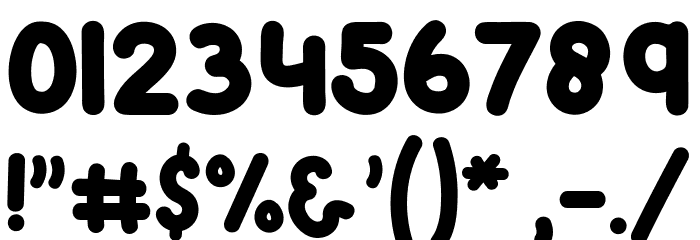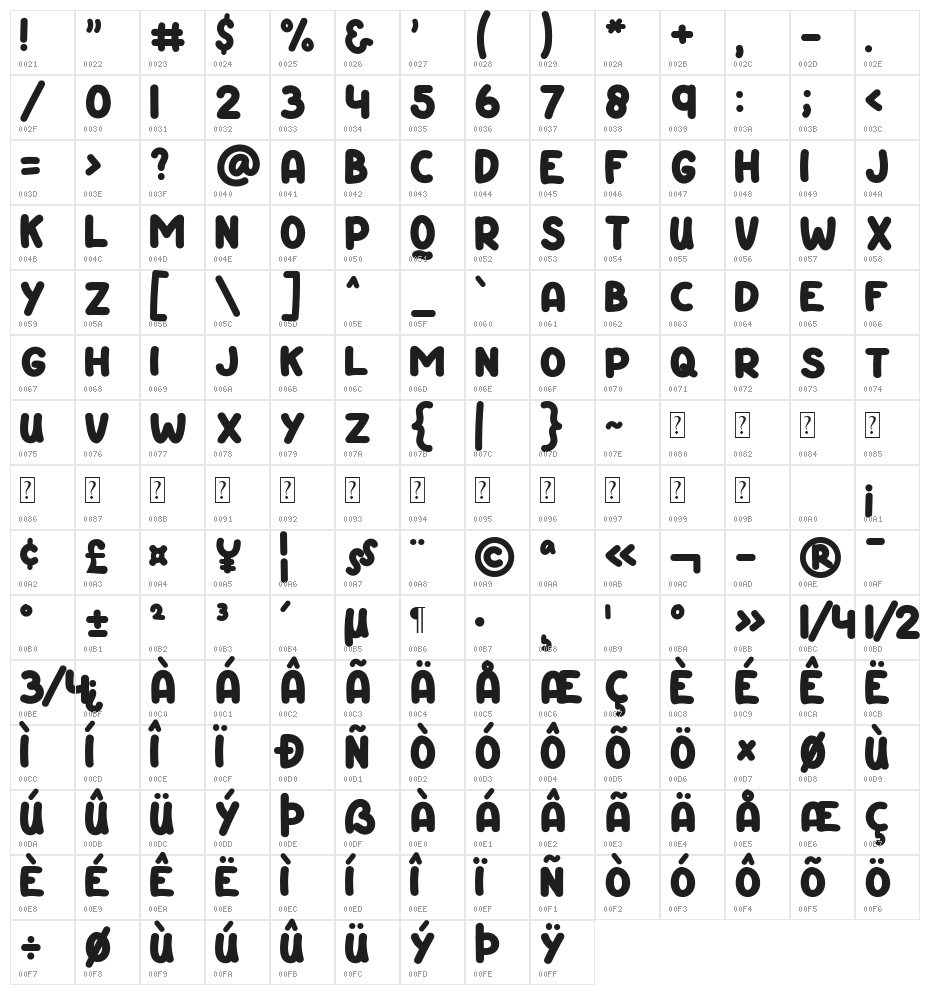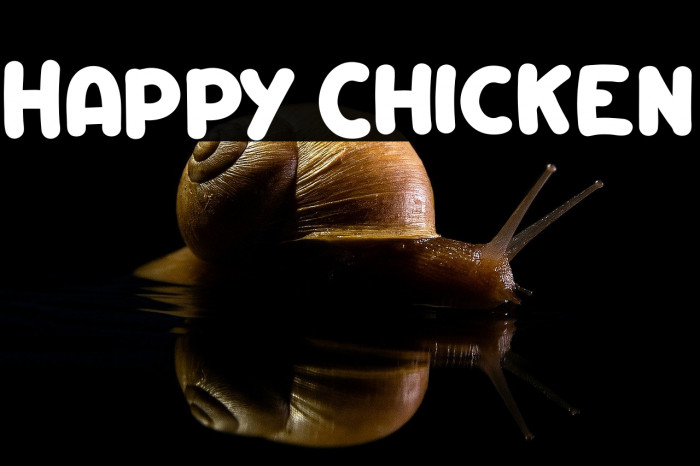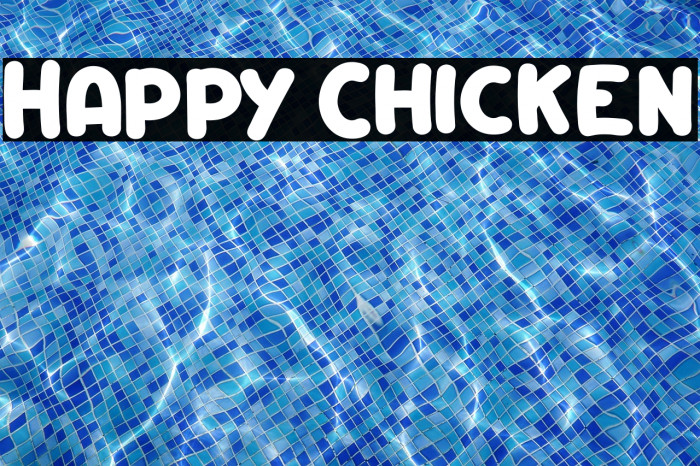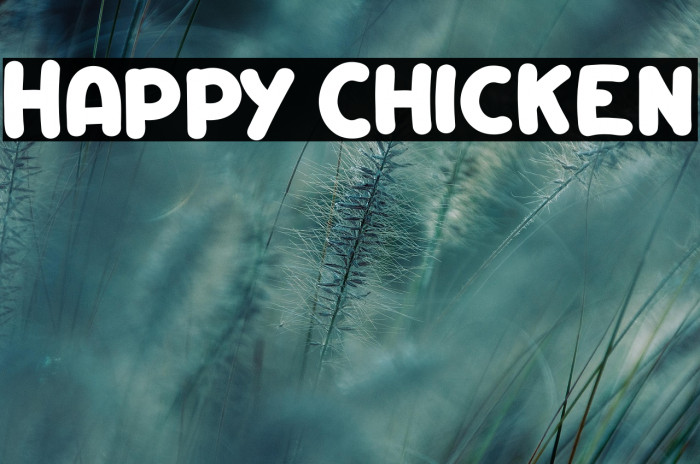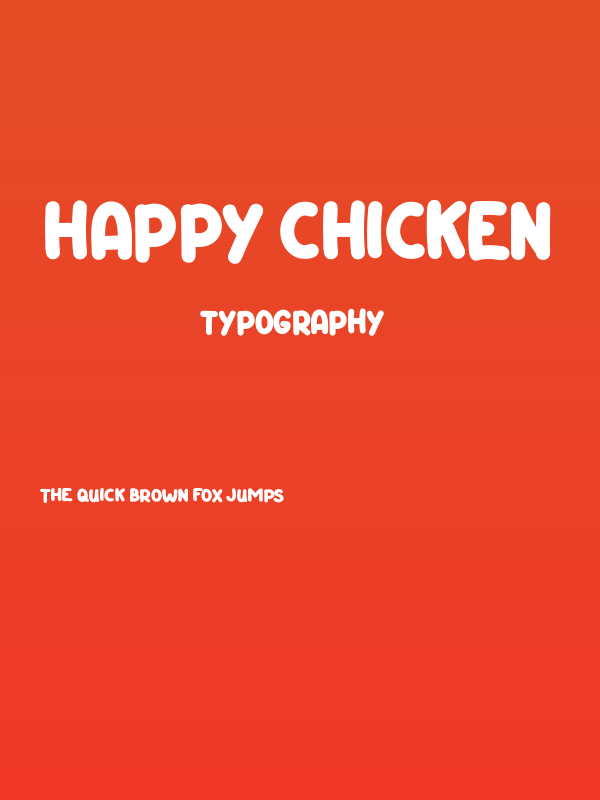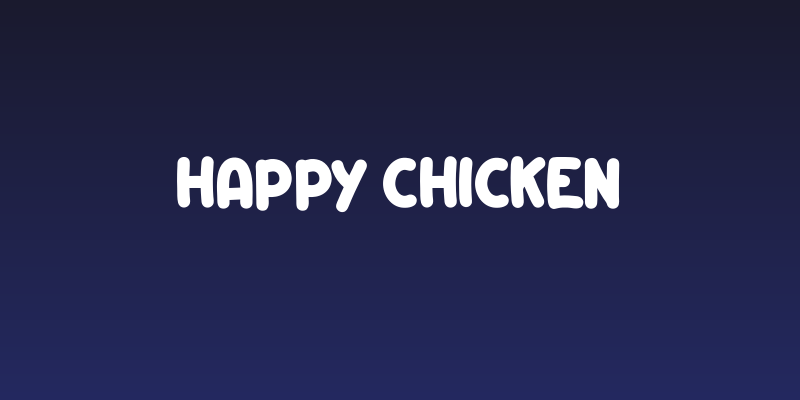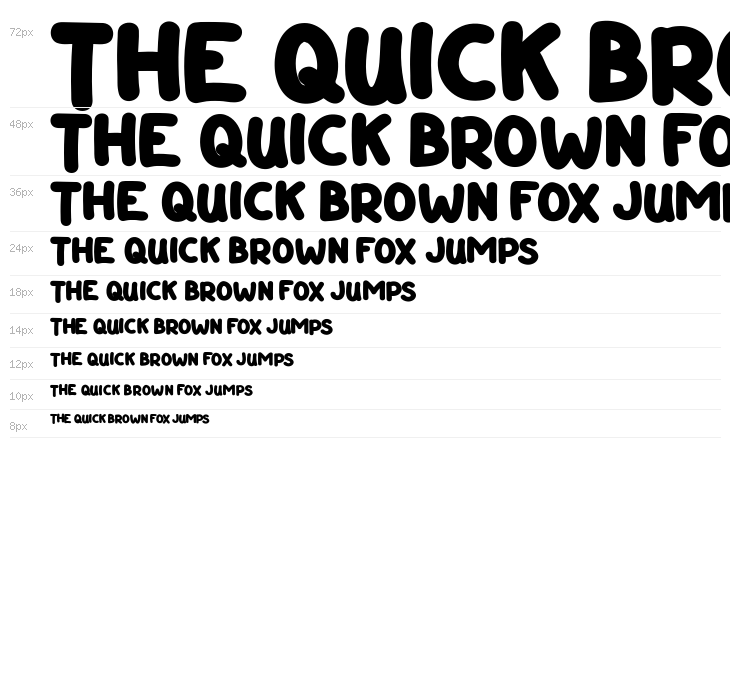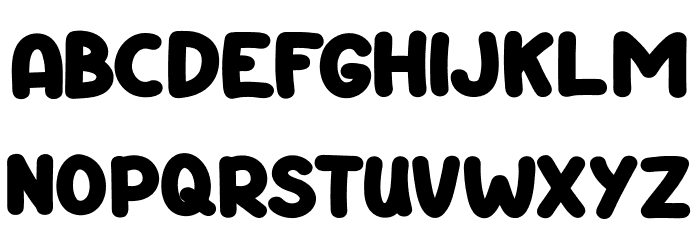
Happy Chicken Font
Happy Chicken Description
This playful and bold font features rounded, thick strokes that convey a sense of fun and friendliness. The characters are uniformly wide, with a consistent stroke weight that gives it a cohesive appearance. The rounded edges and bubbly style make it approachable and ideal for informal settings. The font maintains a uniform height across both uppercase and lowercase letters, contributing to its balanced look. Its whimsical nature is further emphasized by the slightly exaggerated curves and loops, making it perfect for projects that require a touch of humor and lightheartedness.
| Proposed Projects | Ideal for children's books, playful branding, party invitations, and casual social media graphics. |